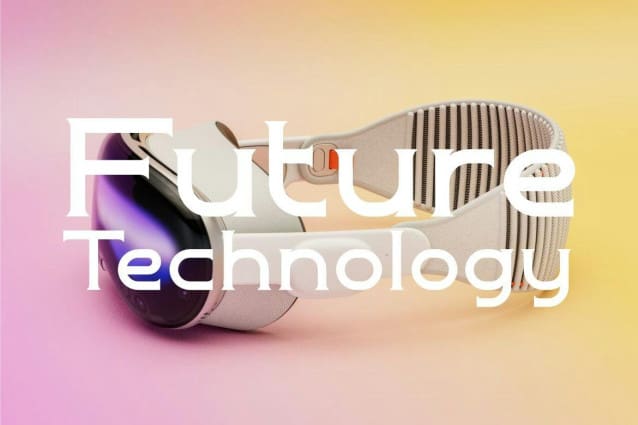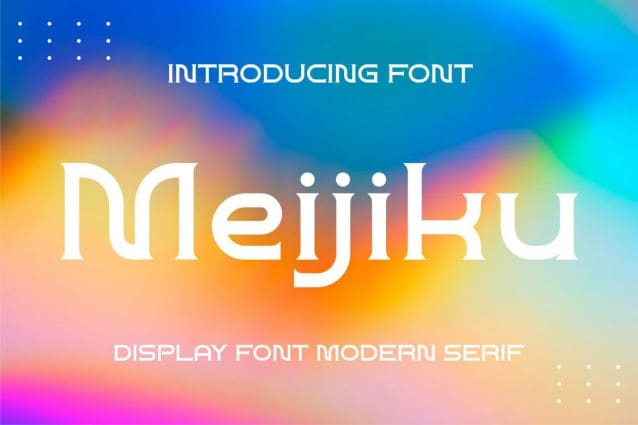
Meijiku Font
Meijiku Font, perfect for personal branding. It was designed with the intention of being used for your personal branding. But it works well for many applications. Everything from personal branding, logos, name tag, handwritten quotes, product packaging, merchandise, social media and greeting cards. Photo signature and advertising could benefit from this collection of these bold signature fonts